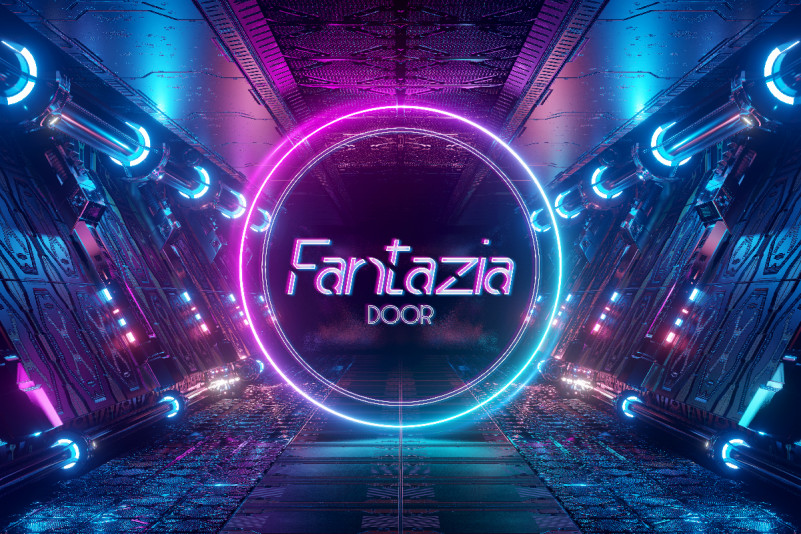
Obedient Display Font
Obedient Display Font is a modern sans serif font display with negative space on its shapes. This font has futuristic and techno style that looks stunning in just about every context. Use it for logos, print, collage, body text, and more!
Obedient Display Font includes full set of Uppercase and Lowercase Basic Characters, Numerals and Punctuation. Also it contains ligatures to make it flowless characters to perfectly make awesome look that add more aesthetic fonts to perfect your extraordinary project. Obedient will be great for Use it for any project that needs a unique, authentic look! Perfect for branding, labels, headline, posters, websites and so much more!